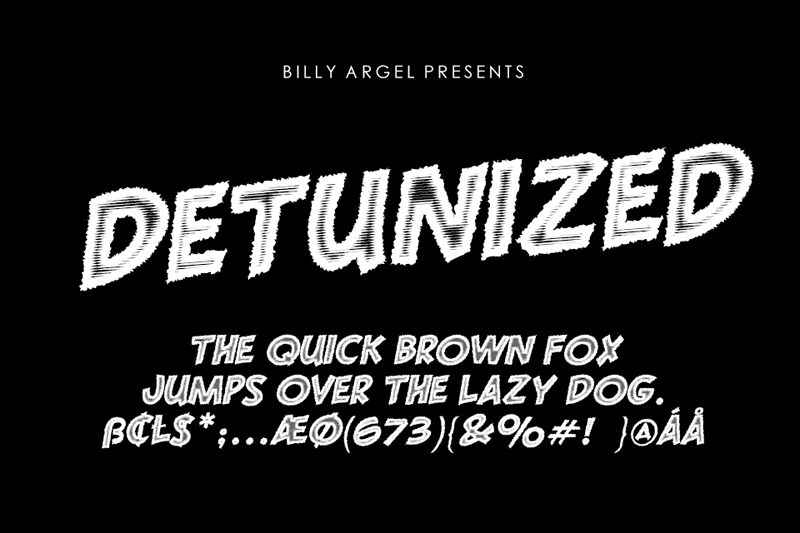
DETUNIZED PERSONAL USE Regular
Detunized, a bold and captivating display font by Billy Argel Fonts, adds a touch of playfulness to any project. Its comic-inspired style brings life to children's books, greeting cards, and animated videos. With its eroded edges, it perfectly complements vintage posters, grunge-inspired album covers, and edgy streetwear brands. Detunized is the ideal choice for anyone seeking a unique and expressive font that effortlessly stands out in both digital and print media. Let your creativity flow with this versatile typeface that effortlessly combines boldness with a touch of whimsy.